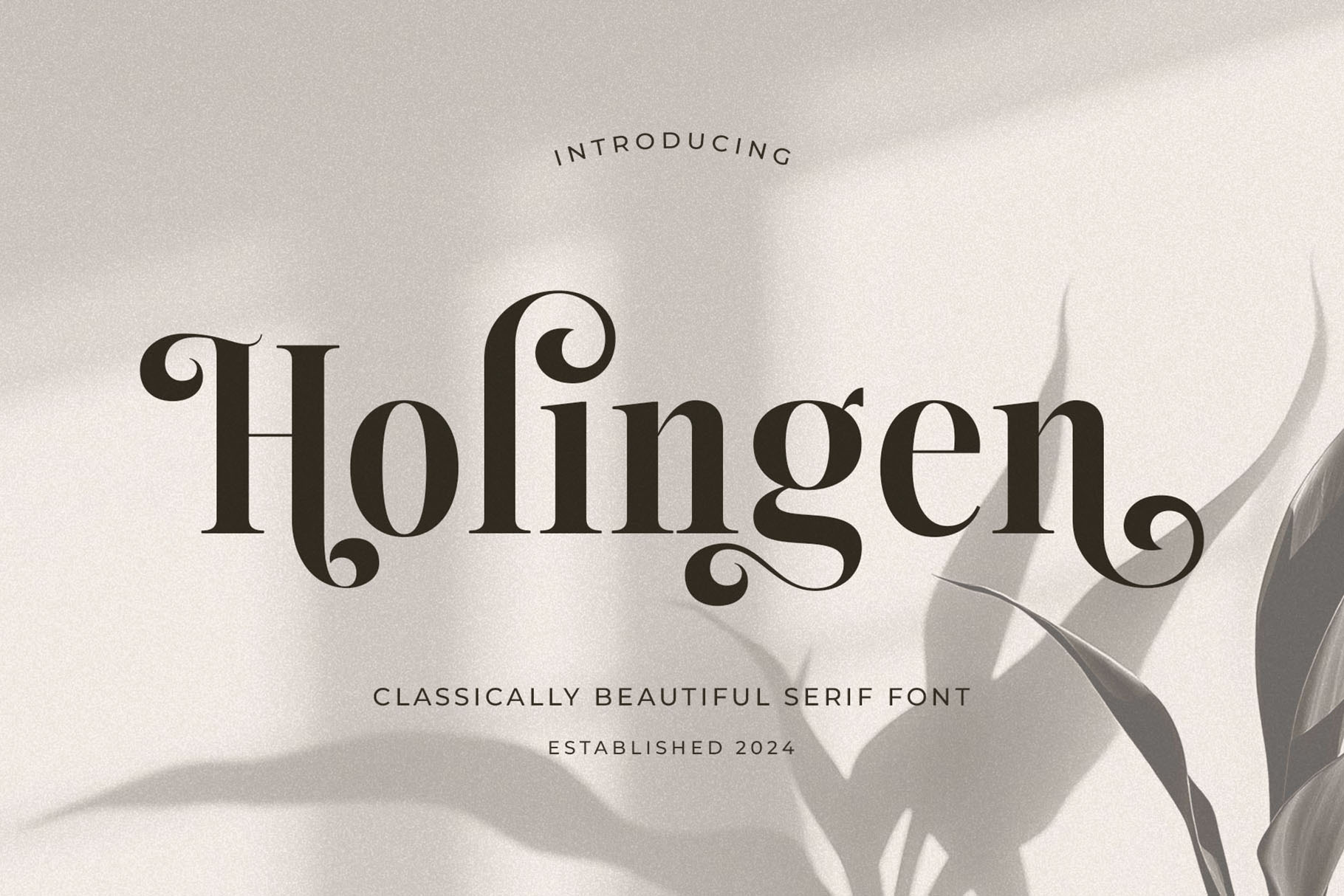
Holingen - Beautiful Serif Font
Introducing our new "Holingen" unique and modern serif font with elegant style this is perfect for branding, logos, invitation, magazines, product packaging and more.